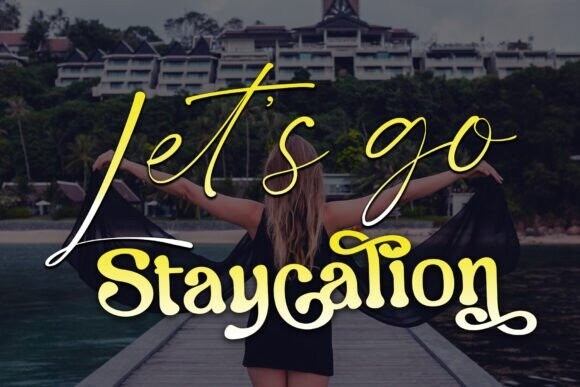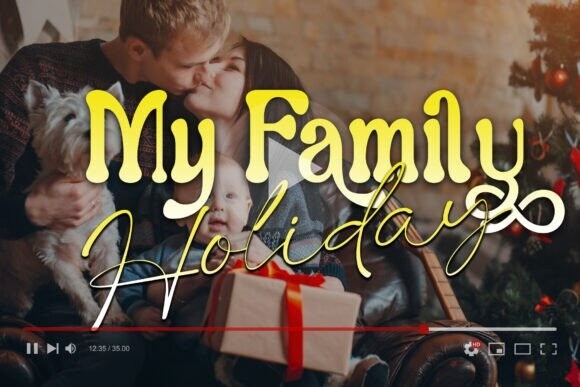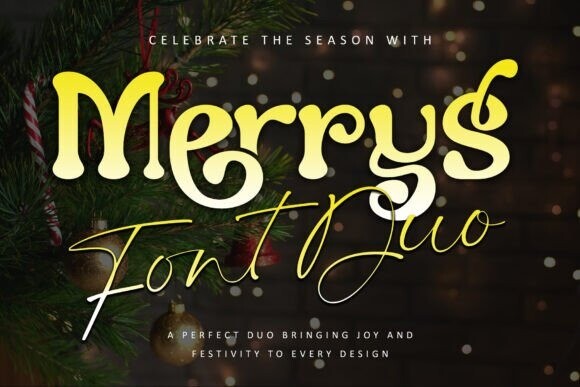
Merrys Font
Merrys Font, a delightful font duo that combines the timeless charm of a classic serif with the playful elegance of a handwritten script, perfect for adding festive magic to all your holiday designs. Whether you’re crafting stunning promotions, branding materials, or seasonal campaigns, Merrys effortlessly adapts to any project with its versatile combination of sophistication and whimsy. The serif font brings a sense of tradition and formality, while the handwritten style adds a joyful, personal touch—ideal for everything from Christmas sale promotions to logos. With PUA encoding, you’ll have easy access to a variety of unique glyphs and swashes, ensuring your designs capture the spirit of the season in a truly captivating way. Let Merrys be your go-to choice for creating memorable, heartwarming designs that spread holiday cheer